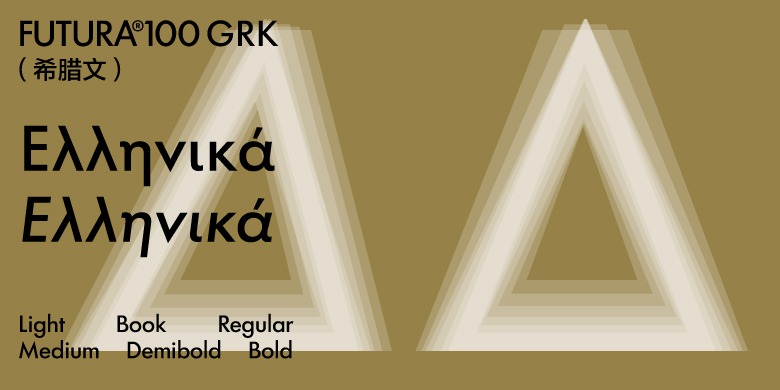
Futura100GRK
Kostas Bartsokas
After 100 years with limited script availability, Paul Renner’s original design has finally been remade for our current age. Futura®100 comprises 23 scripts with six weights in each. A majority of these scripts will feature matching obliques, as well as an optical size axis for enhanced reading. With language support for more than 90% of the world’s population, Futura®100 is historically introspective, globally applicable, and stylistically comprehensive.
The original Futura® was the ultimate in geometric sans serifs, reducing a design category to its most concentrated concept and form. In concert with Bauer Types, TypeTogether has brought together the widest global talents to release Futura®100, the epitome of minimalist geometric typefaces, while maintaining faithfulness to the original shapes. Not an evolution, but a true expansion across time that honours Renner’s intention.
There are two basic reasons for a new Futura. The first is language support. Until now only a few scripts have ever been created, but TypeTogether will release Futura®100 in 23 scripts by the end of 2026 (12 in 2025 and the rest in 2026, including support for major Indic scripts as well as Simplified Chinese and Hangul). This will make Futura®100 one of the few truly global typefaces —communicating in more scripts and languages than ever before. Current scripts include: Armenian, Cyrillic, Georgian, Greek, Hebrew, Khmer, Lao, Latin, PanAfrican Latin, Thai (these ten with obliques), Arabic, and Myanmar. With such extensive coverage, Futura®100 is a great fit for agencies and brands with global reach and multinational commitments.
The second major reason for a new design is to make it more accurate, more powerful, and more aligned with digital publishing needs. After more than two years of archival research, etterform comparison, and usage assessment, Futura®100 is the archetype of Renner’s original interpretation, updated for current expectations, emotional gravitas, and worldwide use. It is perfect for brands already using Futura® but wanting something optimised for readability, global usability, and flexibility across different devices and media. The families come in six weights (Light, Book, Regular, Medium, Demibold, Bold) along with additional obliques and optical size variations. Meaning, each script has up to 24 styles to carry the momentum of every modern story, dynamic action, marketing breakthrough, and rational directive.